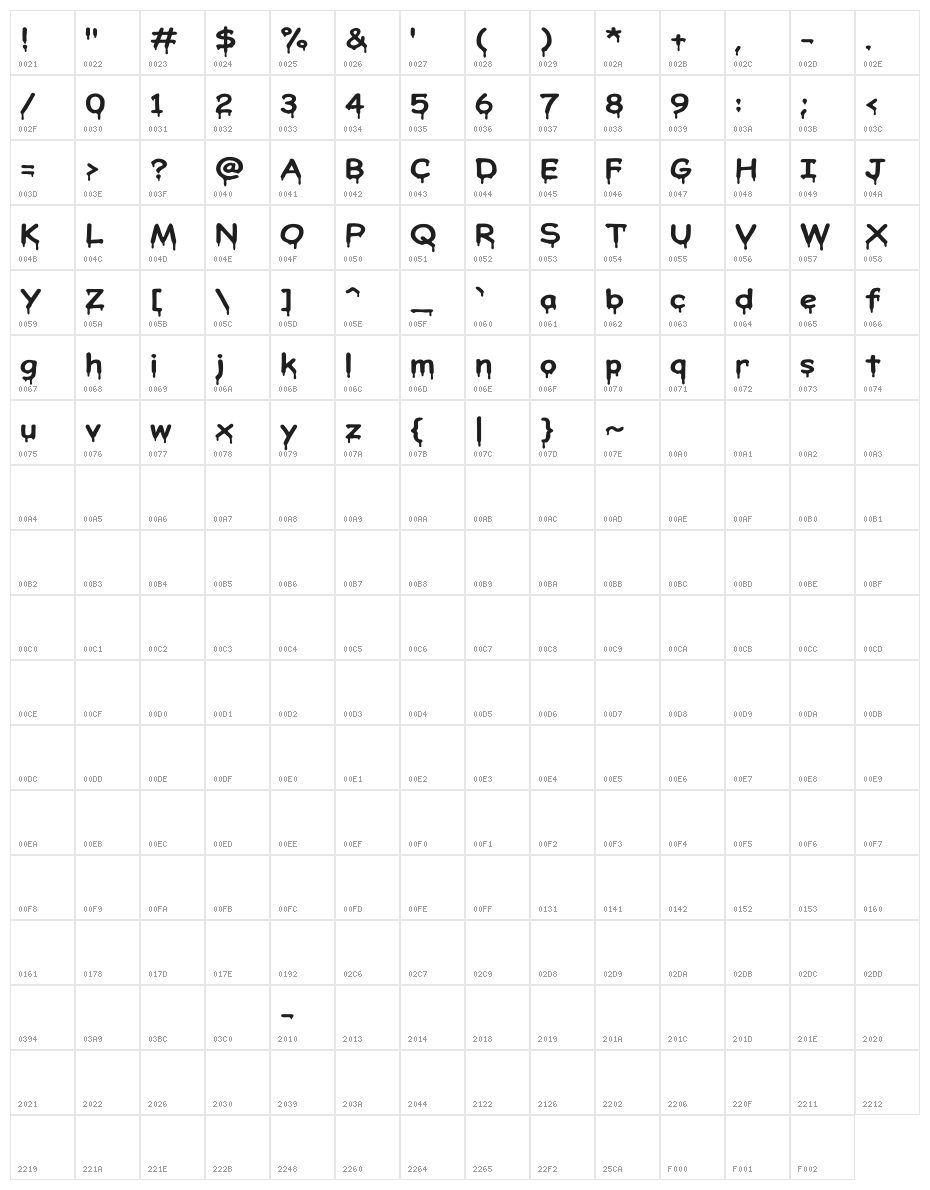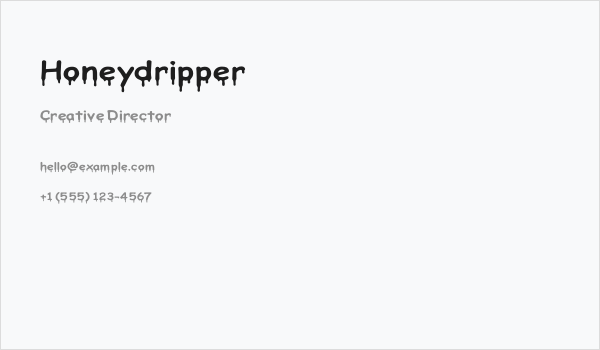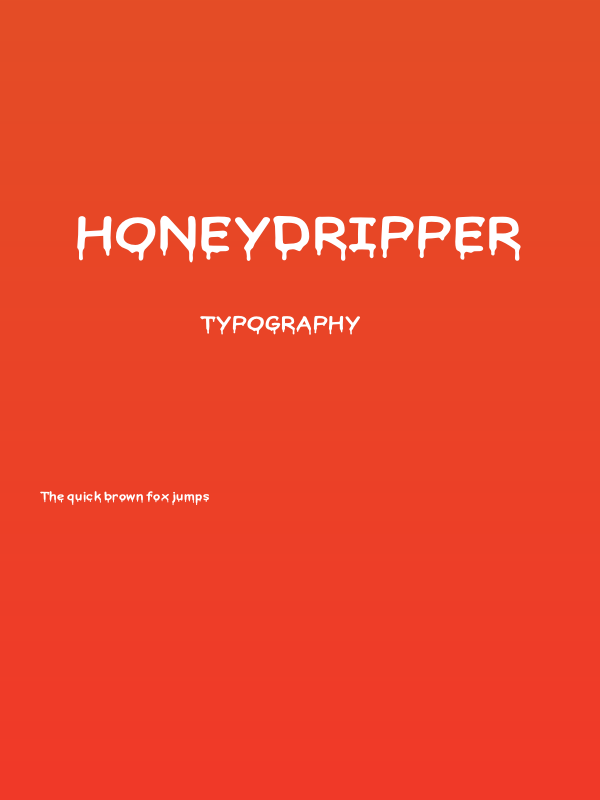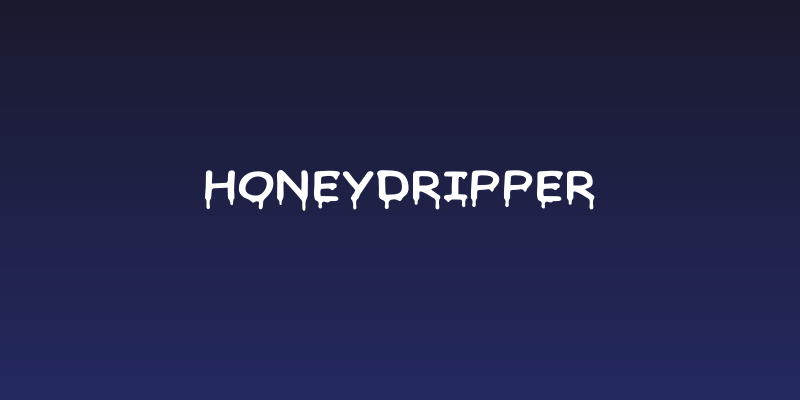
Honeydripper Font
| Рекомендуемые проекты | Perfect for Halloween-themed designs, children's book covers, playful posters, and creative branding projects. |